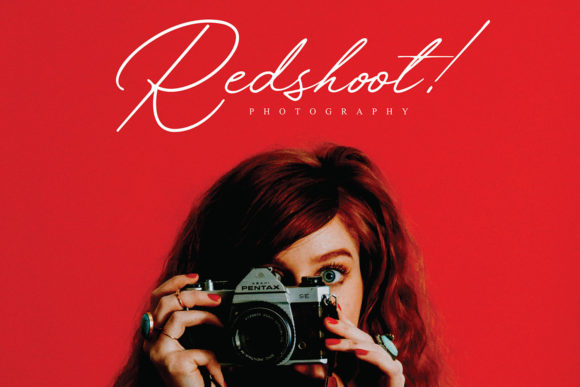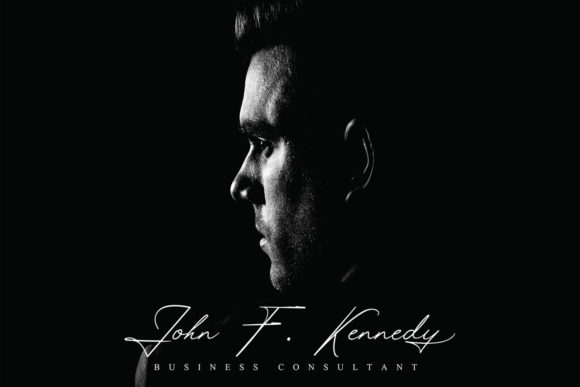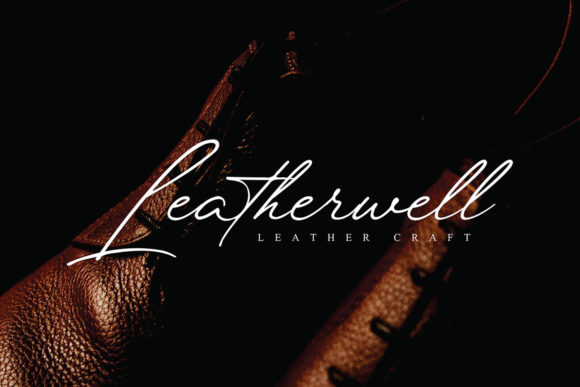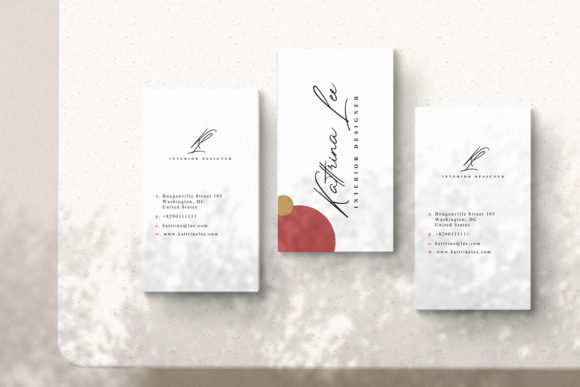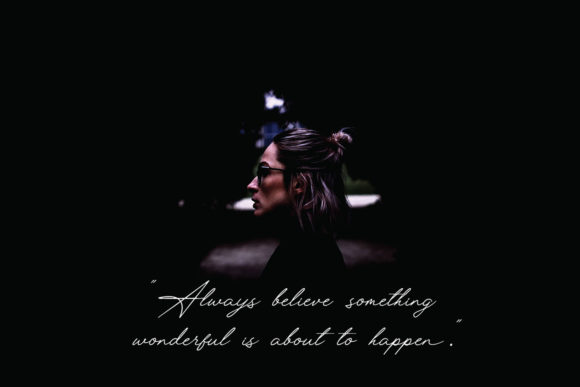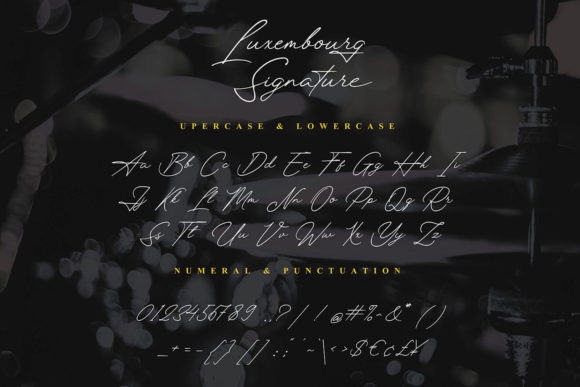
Introduction to Luxembourg Signature Font
Luxembourg Signature simplifies elegance into one truly outstanding handwritten font.
It maintains its classy calligraphic influences while feeling contemporary and fresh This versatility will appeal to a wide range of crafty ideas, from letterheads and titles, to stationery.
Key Features of Luxembourg Signature Font
Why Choose Luxembourg Signature Font?